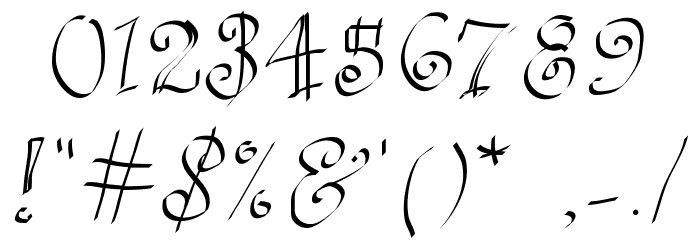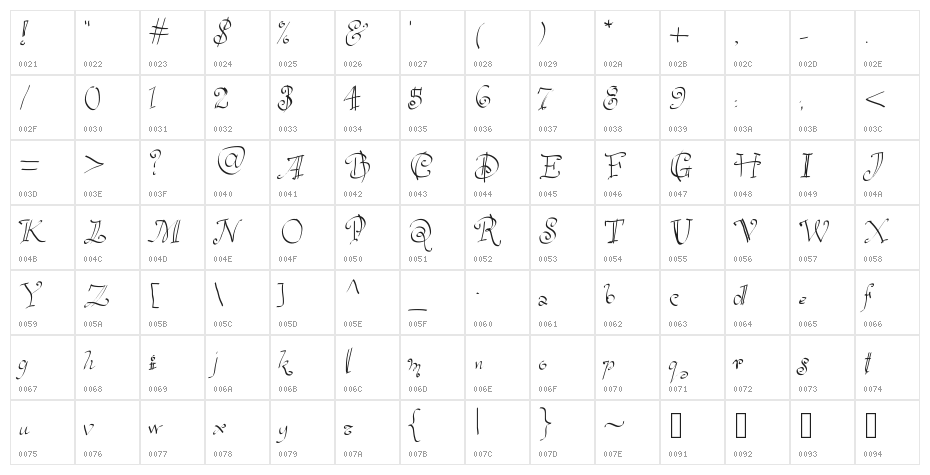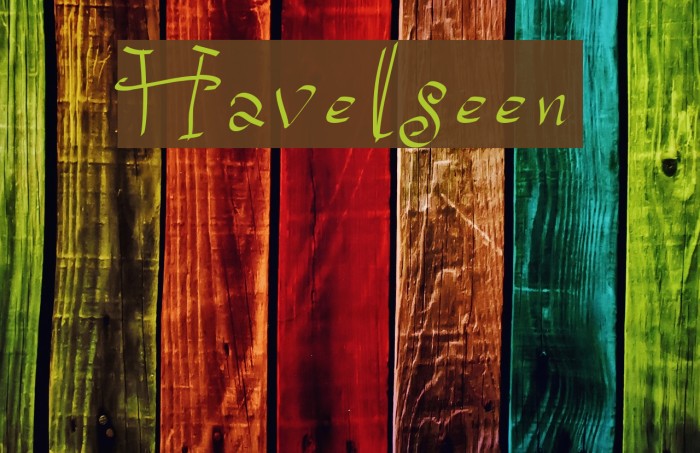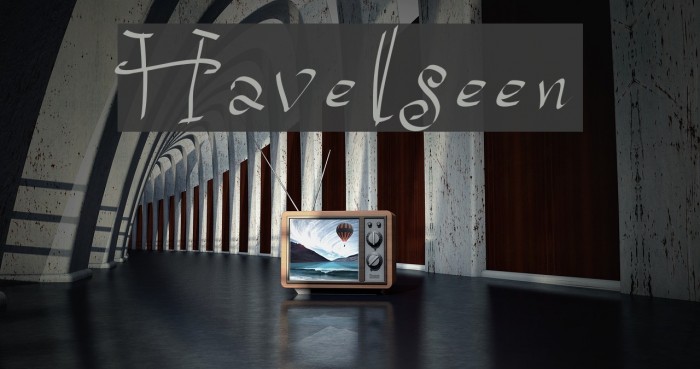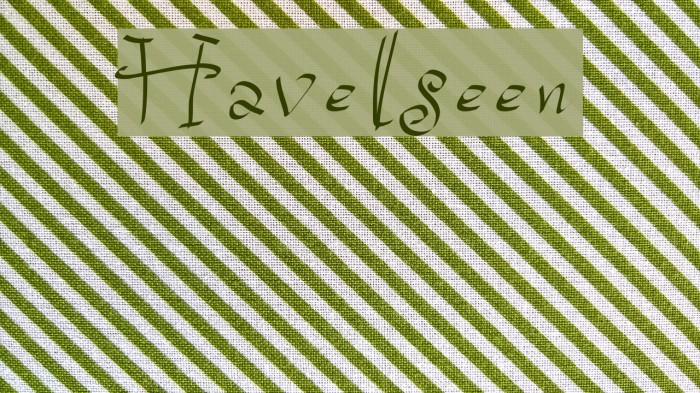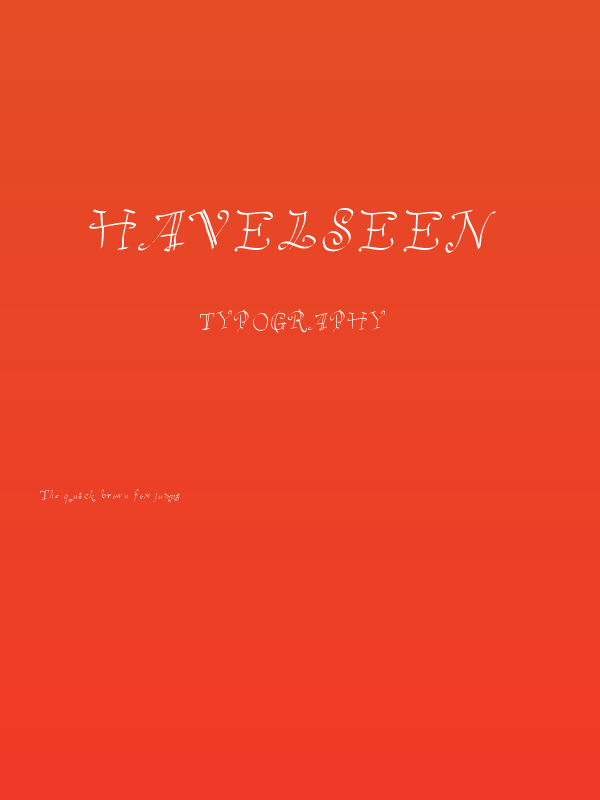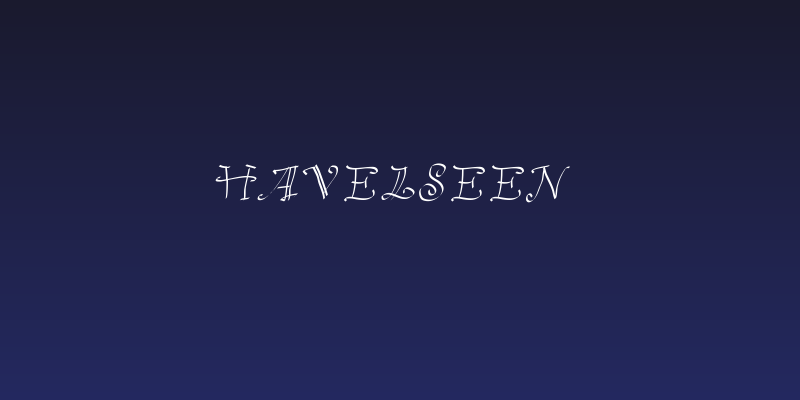
Havelseen Font
Havelseen Description
This font features an elegant and artistic script style, characterized by its flowing and interconnected letterforms. The uppercase letters exhibit a sophisticated flair with intricate loops and swirls, while the lowercase letters maintain a consistent cursive style. The numerals and special characters are designed with similar artistic elements, ensuring a cohesive look. The overall appearance is both decorative and refined, making it suitable for projects that require a touch of elegance and creativity.